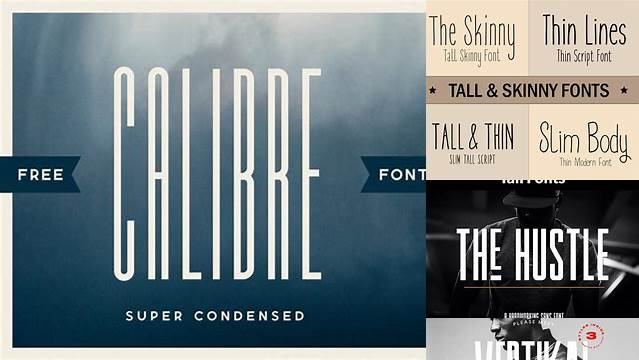
Free Tall & Thin Fonts: Perfect For Modern Designs
Hey guys! Ever been on the hunt for the perfect font to give your design that sleek, modern edge? You know, something tall, thin, and effortlessly stylish? Well, you've come to the right place! We're diving deep into the world of tall thin fonts free, exploring everything from their uses to where you can snag them without spending a dime. Let's get started!
1. What are Tall Thin Fonts?
Let's kick things off with the basics. What exactly are tall thin fonts? These fonts, characterized by their elongated vertical strokes and slender profiles, exude a sense of elegance and modernity. Think skyscrapers gracing a city skyline or the graceful lines of a fashion model. Tall thin fonts often have a minimalist aesthetic, making them ideal for designs that aim for sophistication and clarity. They are a stark contrast to their wider, bolder cousins, offering a more refined and subtle visual impact. The appeal of these fonts lies in their ability to command attention without overwhelming the viewer, a delicate balance that is crucial in effective design. Their clean lines and narrow forms allow for increased readability in certain contexts, especially when used sparingly and with ample whitespace. From a technical perspective, the design of a tall thin font requires precision; the balance between height and width must be meticulously calculated to prevent the font from appearing stretched or distorted. The x-height, cap height, and overall proportions play critical roles in the font's visual harmony. Choosing a tall thin font can instantly elevate a project, adding a touch of contemporary flair that resonates with modern audiences. For designers, these fonts are more than just a stylistic choice; they are a tool to convey specific messages and emotions, embodying sophistication, minimalism, and a forward-thinking mindset. Whether you are working on a branding project, a website design, or even print materials, understanding the nuances of tall thin fonts can make a significant difference in the overall impact of your work.
2. Uses of Tall Thin Fonts in Design
So, where can you actually use these tall thin fonts? The possibilities are pretty endless! They're amazing for headlines and titles, where you want to make a statement without being too loud. Think magazine covers, website headers, or even eye-catching posters. But they're not just for big, bold text. They also work wonders in logos, giving a brand a sophisticated and modern identity. Imagine a sleek, minimalist logo for a tech startup or a high-end fashion boutique – a tall thin font can be the perfect touch. Beyond that, they can add a touch of elegance to invitations, business cards, and other stationery. The key is to use them thoughtfully. Because of their delicate nature, tall thin fonts often shine best when paired with plenty of whitespace and used sparingly. Overusing them can lead to readability issues, especially in body text. But when used strategically, they can create a powerful visual hierarchy and guide the viewer's eye. Moreover, the digital realm has greatly benefited from the use of these fonts. Web designers frequently turn to tall thin fonts to create clean, user-friendly interfaces. They work well on screens of all sizes, from large desktop monitors to small smartphone displays. Their slim form allows for more content to fit into a given space without appearing cluttered, which is crucial for responsive design. In the world of branding, a well-chosen tall thin font can be the cornerstone of a company’s visual identity. It can communicate the brand’s values and personality in a subtle yet impactful way. Think about luxury brands that often use these fonts to convey exclusivity and sophistication. The versatility of tall thin fonts is one of their greatest assets. They can be adapted to fit a wide range of styles and industries, from tech and fashion to architecture and design. By understanding their strengths and limitations, designers can effectively harness the power of these fonts to create visually stunning and impactful designs.